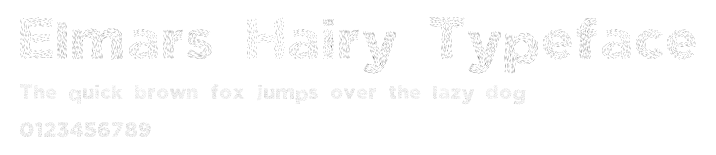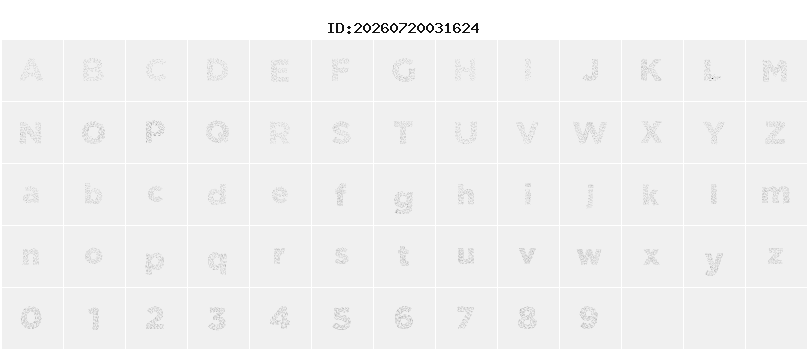
Elmars Hairy Typeface Preview
• Font Name: Elmars Hairy Typeface
• Designer: Toro Elmar
About Elmars Hairy Typeface.ttf
Elmars Hairy Typeface.ttf is a modern, elegant sans-serif font designed for ultimate readability and visual harmony. Perfect for branding, headlines, web design, and print materials.